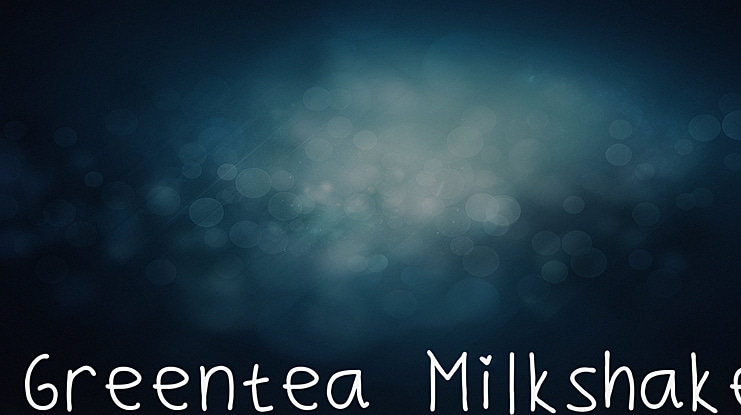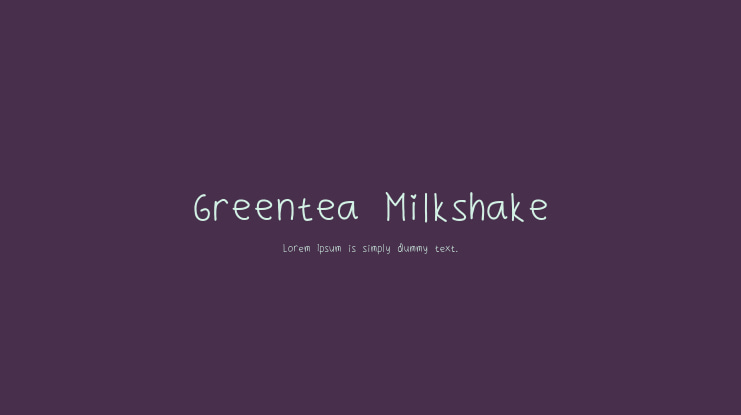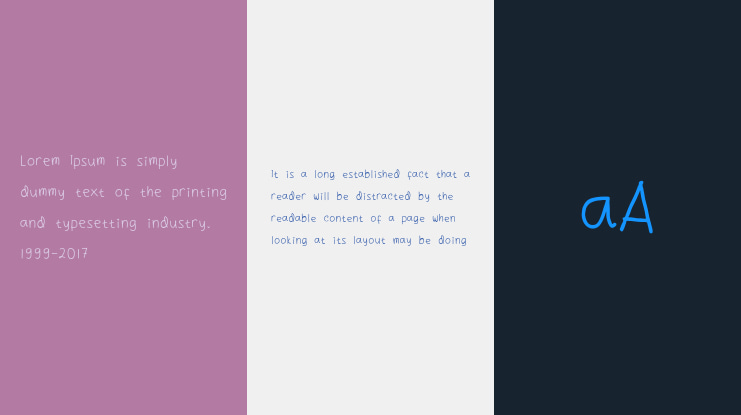
Greentea Milkshake Font
Masyafi std
Greentea Milkshake is an incredibly unique display font. Masterfully designed to become a true favorite, this font has the potential to bring each of your creative ideas to the highest level!